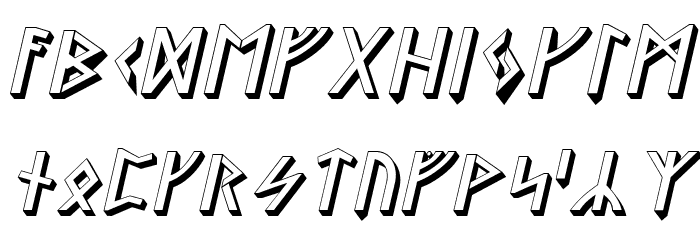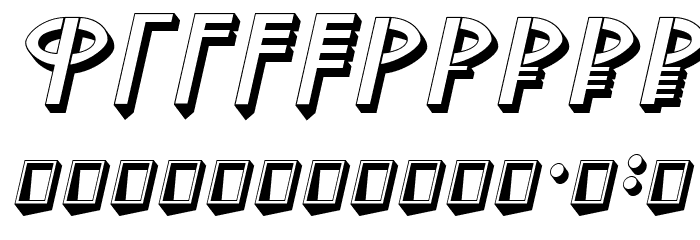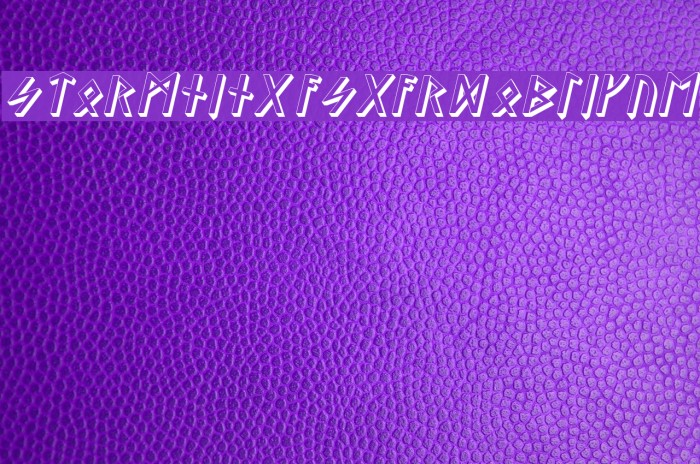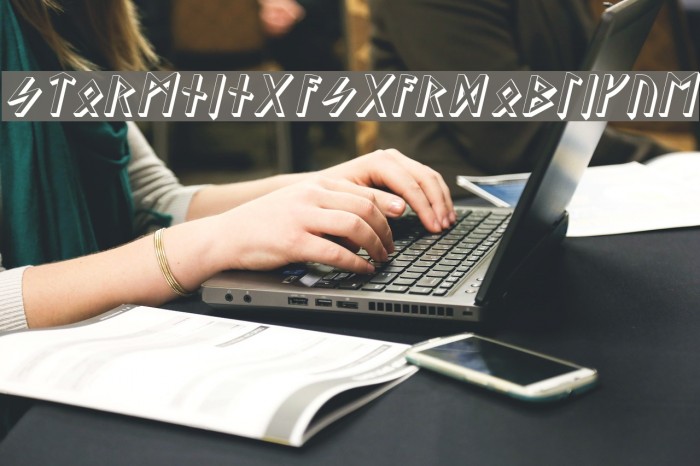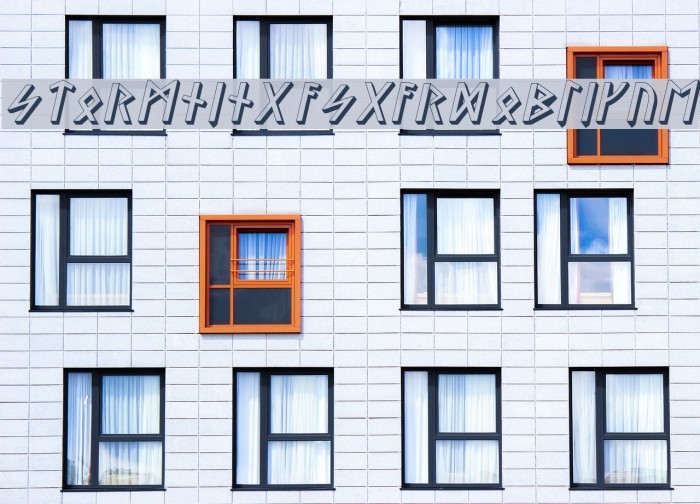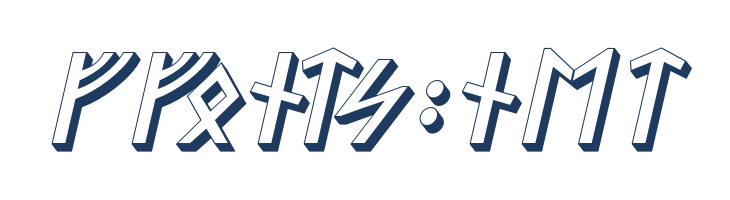
Stormning Asgard Oblique Font
This font features a bold, angular design with a strong 3D effect, reminiscent of ancient runes or Norse mythology. The characters are sharply defined with a distinct shadow that gives them a sense of depth and dimension. The uppercase letters are particularly striking, with unique geometric shapes that convey a sense of power and mystery. The lowercase letters maintain the same angular style, ensuring consistency across the typeface. Numbers and special characters are equally bold, with the same shadow effect enhancing their visual impact. This font is ideal for projects that require a dramatic and eye-catching typeface.
A bold, angular font with a 3D effect, inspired by ancient runes.
- Proposed Projects: Perfect for fantasy-themed designs, video game titles, movie posters, and branding that requires a mythical or powerful aesthetic.